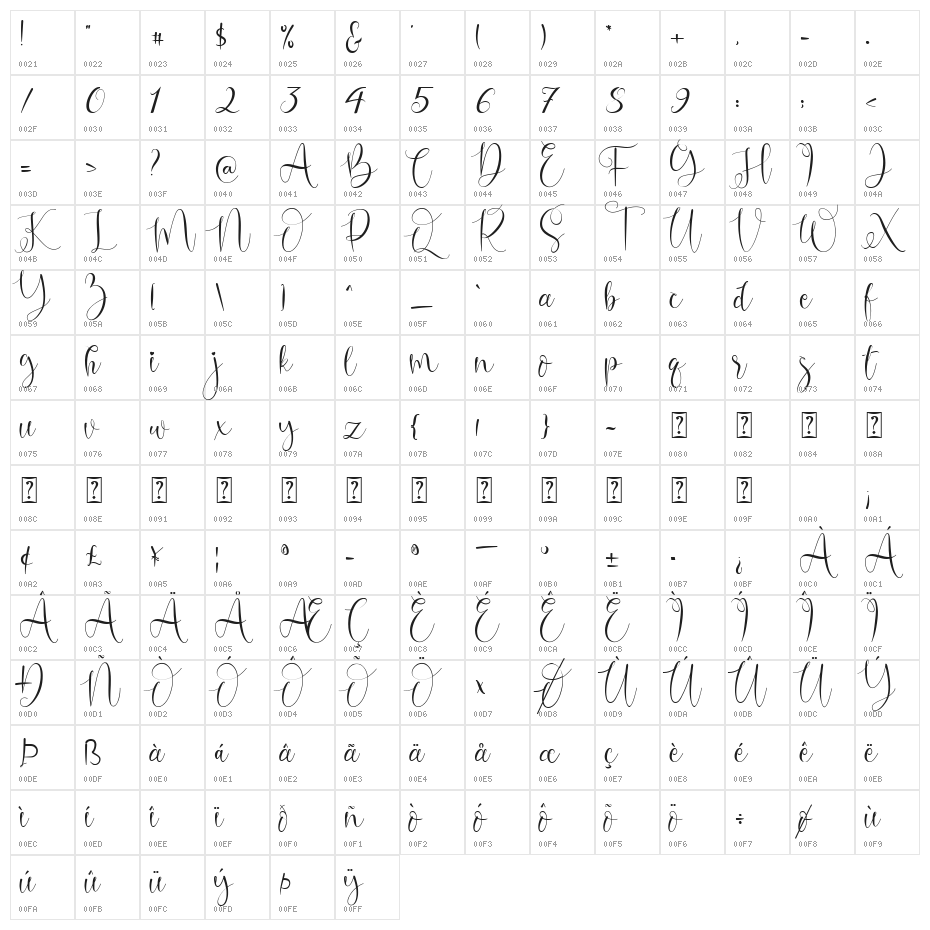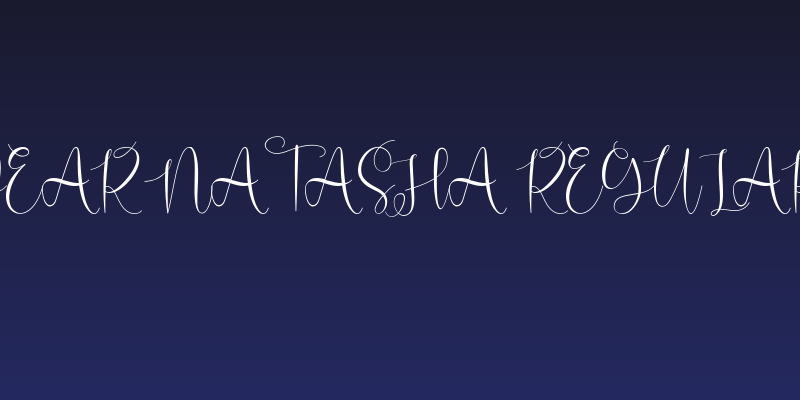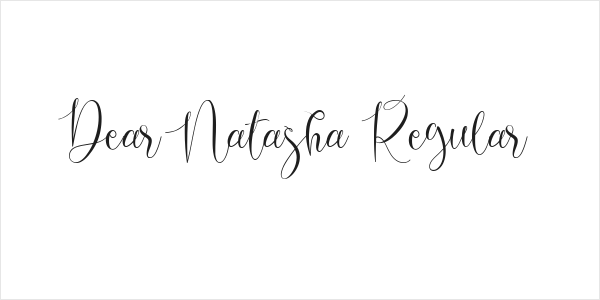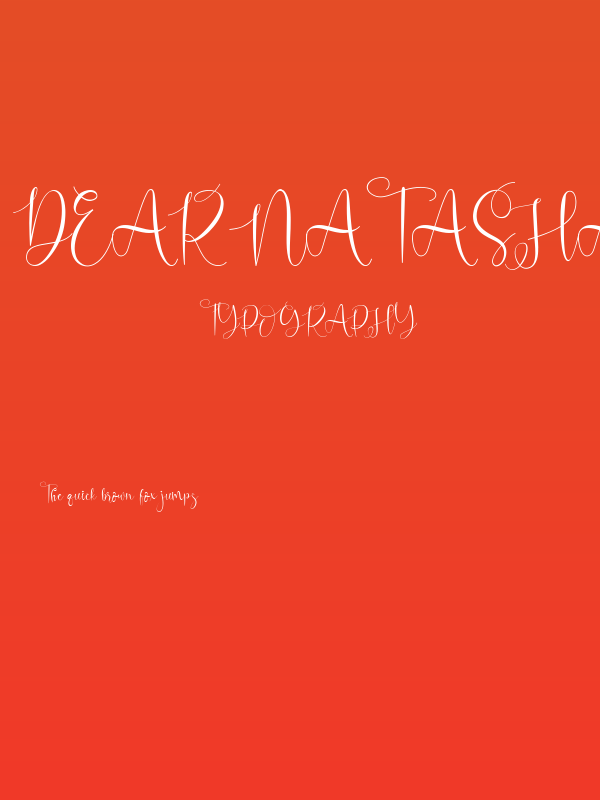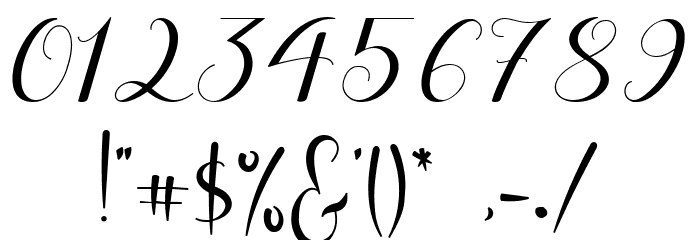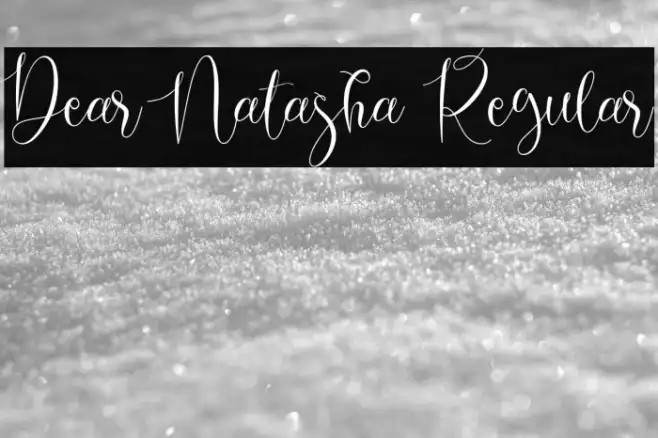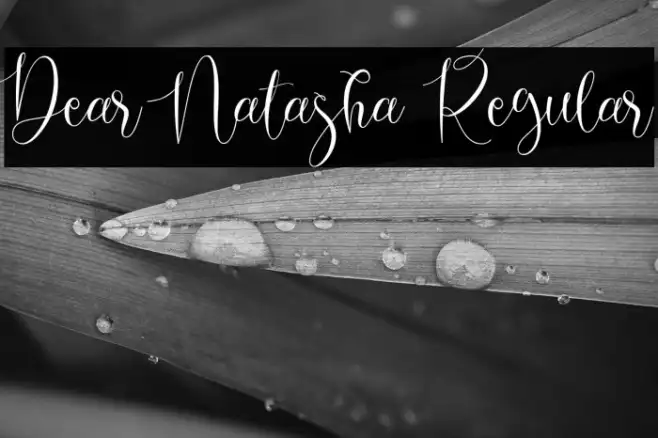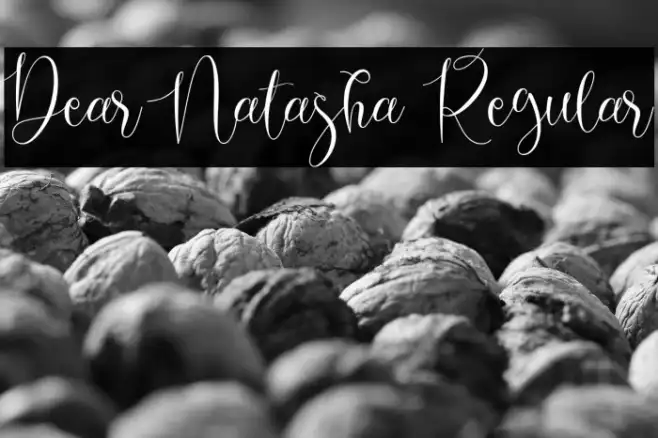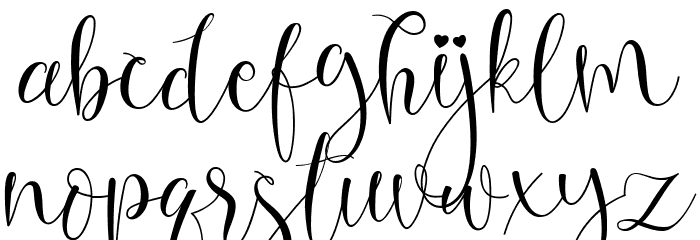
Dear Natasha Regular Font
Dear Natasha Regular Description
This font exudes elegance and sophistication with its flowing, cursive style. The uppercase letters are characterized by their intricate loops and flourishes, creating a sense of movement and grace. The lowercase letters maintain a consistent style, with some letters featuring unique swashes that add a touch of whimsy. The numerals are stylish and maintain the overall cursive theme, while the special characters blend seamlessly with the rest of the font. This font is perfect for projects that require a personal, handwritten touch, such as invitations, greeting cards, or branding materials.
| Use Case | Headlines, Invitations, Logos |
| Proposed Projects | Ideal for wedding invitations, greeting cards, and elegant branding. |